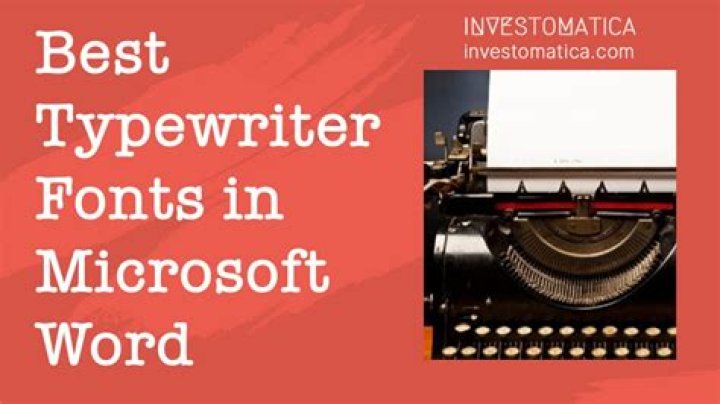
What Microsoft font looks like a typewriter?
The font used in typewriters is \”courier\”.
What Microsoft Word font is most like a typewriter?
Courier
Although Courier is the most well-known font of this kind, there are loads of other, more decorative, typewriter-inspired fonts out there.
What font is closest to old typewriter?
Hammer Keys
Out of the fonts we’ve seen so far, Hammer Keys is the one that comes the closest to capturing the style of an old typewriter.
Is there a typewriter font in Google Docs?
Special Elite mimics the Smith Corona Special Elite Type Number NR6 and Remington Noiseless typewriter models. A little bit of inked up grunge and a little old school analog flavor work together to give you a vintage typewriter typeface for your website and designs.
Does Microsoft Word have a typewriter font?
There are no typewriter fonts in Word. Fonts reside in the Fonts folder in the OS and are accessed by Word. If you want typewriter fonts, a 10 second search in your browser will get you hundreds.